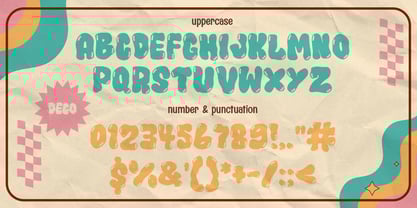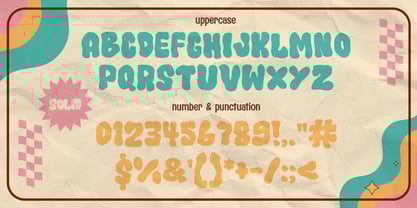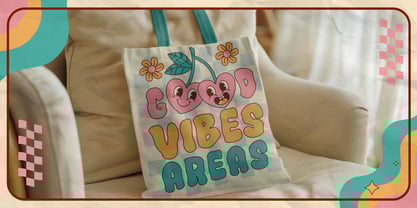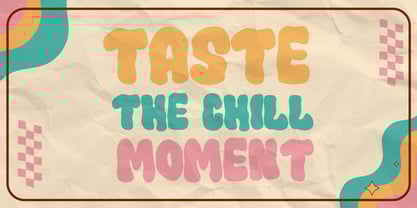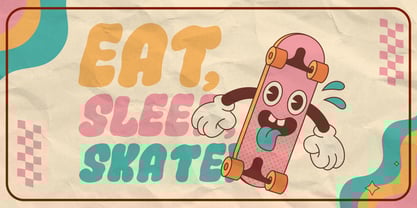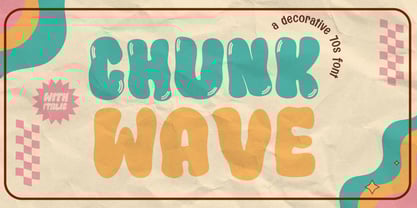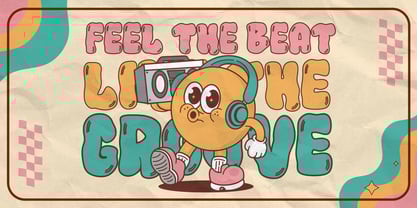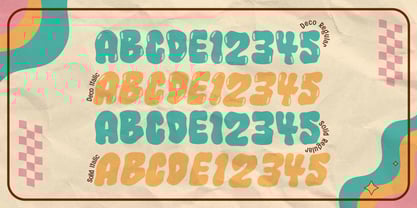
Chunk Wave
The Chunk Wave Font Family was designed by Sipanji and published by Sipanji21. Chunk Wave contains 4 styles and family package options. More about this family
Chunk Wave is a groovy 70s display font that brings a retro and funky vibe to your designs. With four distinct styles—solid/clean (regular and italic) and decorative (regular and italic)—this font combines bold, chunky letterforms with subtle wave-like curves, creating a playful yet stylish aesthetic.
Ideal for retro posters, album covers, branding, social media graphics, t-shirts, and any project inspired by the 70s era, Chunk Wave adds a touch of vintage nostalgia while maintaining a modern and eye-catching appeal. Its versatile styles allow for creative combinations, making it perfect for projects that need a fun, dynamic, and effortlessly cool look.